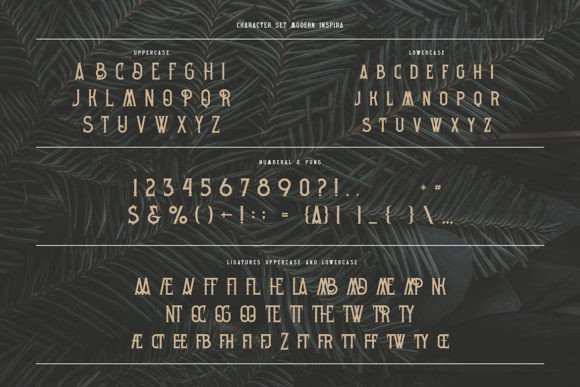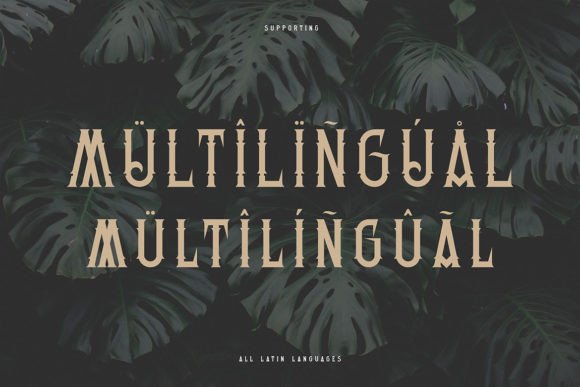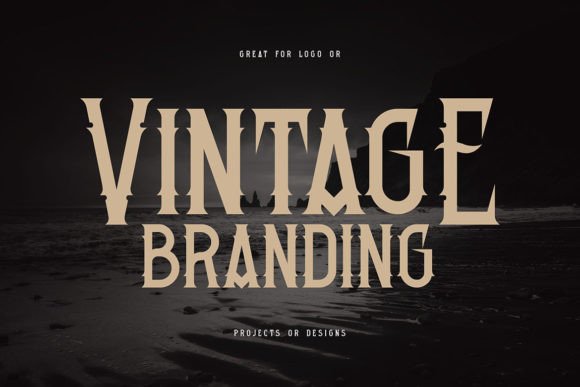
Introduction to Modern Inspira Font
Modern Inspira is a stylish, distinctive, and retro serif font with an eye-catching design.
Its bold lines and curves give it a unique look, perfect for adding a touch of vintage charm The sharp edges and subtle details make it stand out, while the wide variety of weights and styles give it versatility.
Key Features of Modern Inspira Font
Why Choose Modern Inspira Font?